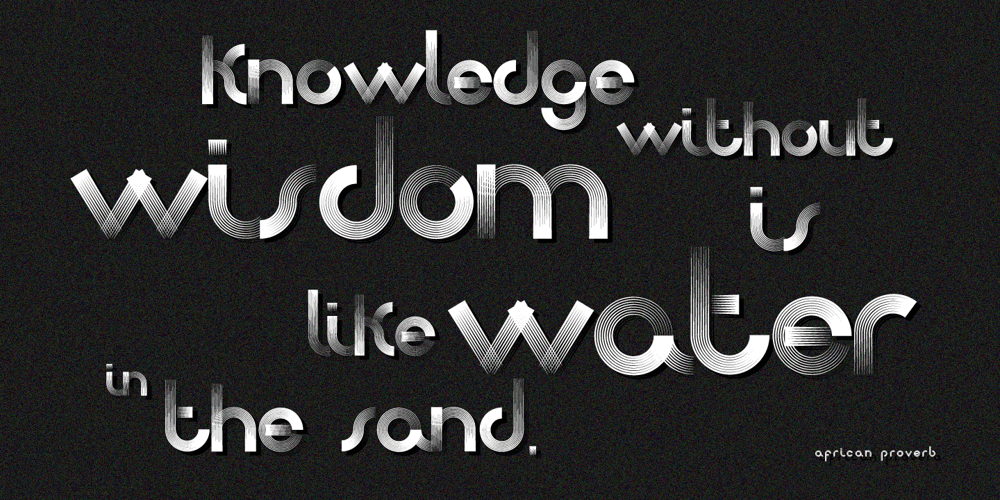
Afrobeat
Afrobeat font
Afrobeat Font Family was designed by Giuseppe Salerno, Paco González and published by Resistenza. Afrobeat contains 1 styles and family package options. Afrobeat Font seamlessly blends the pulsating energy of Afrobeat music with the fluidity of rounded multiline typographyDrawing inspiration from the rhythmic cadence and vibrant spirit of Afrobeat, this psychedelic font transcends mere letters, transforming them into visual symphonies that dance across the page.Just as Afrobeat music weaves together diverse influences – jazz, funk, and psychedelic rock – into a tapestry of sound, this font blends elements of style and form to create a captivating visual experience. Each letter is meticulously crafted, with curves and contours that echo the hypnotic beats of the drums and the intricate melodies of the brass section.Afrobeat, born in the 1960s amidst the political ferment of Nigeria, is a genre that speaks to resistance, resilience, and celebration. It has been championed by iconic figures such as Fela Kuti, Femi Kuti, and Antibalas, and its influence reverberates across continents, inspiring artists and activists alike.Just as Afrobeat music has the power to uplift and unite, Afrobeat Font invites you to infuse your designs with that same infectious energy. Whether you’re creating posters for concerts, flyers for events, or album covers for your latest musical endeavor, this font ensures that your message will be bold, vibrant, and impossible to ignore.With its rounded multiline design, Afrobeat Font is particularly well-suited for printed projects, where its larger-than-life presence can truly shine. Let each letter sing and each word dance as you bring your ideas to life with the rhythm and soul of Afrobeat Font.